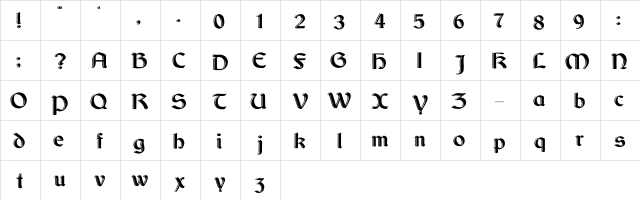
Dundalk_HandDrawn Normal Font Preview
Dundalk_HandDrawn Normal
Dundalk_HandDrawn Normal Font Details
Design Context for Dundalk_HandDrawn Typeface
Dundalk_HandDrawn flows with the natural rhythm of handwritten lettering, making it ideal for designs that call for warmth and personal expression.